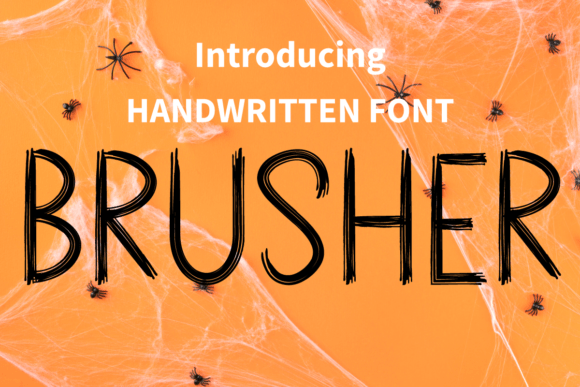
Discover Your Next Design Companion: Brusher Font
Have you ever sat at your desk, staring at a blank canvas, searching for that perfect spark to ignite your creativity? Maybe you’ve been stuck on a project for hours, trying to find the right words to convey your message. That’s when the magic happens – you stumble upon a font that speaks to you, and suddenly, your design comes alive.
Meet Brusher Font, a delightful handwritten font that’s sure to brighten up your designs. With its whimsical and quirky charm, Brusher Font is perfect for adding a personal touch to your projects. Whether you’re working on a logo, wedding invitation, or advertisement, this font is sure to bring a smile to your face and captivate your audience. As a designer, you’ll appreciate the versatility and expressiveness of Brusher Font, making it a valuable addition to your toolkit.
So why settle for a generic font when you can add a dash of personality to your designs with Brusher Font? Give it a try and discover the magic for yourself!
Brusher Font Key Features
- Font Family: Brusher is a script font family with a handwritten feel.
- Unique Characteristics: Brusher features a unique, hand-drawn design with subtle imperfections and variations in line width and stroke.
Designer Review: Brusher Font
Brusher Font is a beautiful, hand-drawn font that I’ve been excited to dive into. Overall, I think it’s a solid choice for creative projects that need a unique touch.
- ✨ High-quality, detailed brush strokes that give it a natural, organic feel
- ✨ A wide range of weights and styles to choose from, making it suitable for various design applications
- ✨ Excellent legibility, even at smaller font sizes
- ⚠️ Limited language support, which may be a concern for projects that require non-Latin scripts
- ⚠️ Some characters may not be suitable for digital use, as they appear to be designed for print only
- ⚠️ Not as versatile as some other fonts, which may limit its use in certain design contexts
Brusher Font is a lovely addition to any designer’s toolkit. While it may not be perfect for every project, it excels in situations where a unique, hand-crafted look is required. With some careful consideration of its limitations, I think Brusher Font can be a valuable asset for designers looking to add some personality to their work.
The Brusher Font is perfect for:
- Creative projects (e.g. social media posts, infographics, etc.)
- Designing branding materials (e.g. logos, business cards, etc.)
- Creating educational content (e.g. presentations, handouts, etc.)
Alternatives to Brusher Font
Great Vibes is a beautiful, handwritten font that is perfect for creating a friendly and approachable atmosphere. It is ideal for use in advertising, branding, and packaging design. Great Vibes has a more elegant and refined feel compared to Brusher Font, which makes it suitable for a wider range of applications.
Carolyna Pro is a modern, elegant script font that is perfect for use in fashion, beauty, and luxury branding. It has a more sophisticated feel compared to Brusher Font, making it ideal for high-end designs. Carolyna Pro is also highly customizable, allowing designers to adjust the font’s style and layout to suit their needs.
Alex Brush is a elegant, handwritten font that is perfect for use in creative and artistic projects. It has a more delicate and refined feel compared to Brusher Font, making it suitable for use in book titles, magazine covers, and other design projects where a touch of elegance is required.